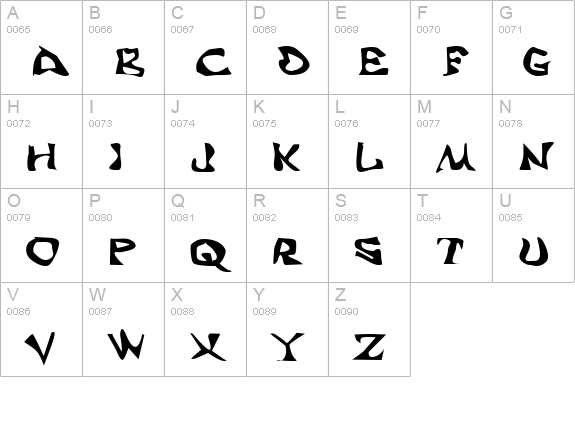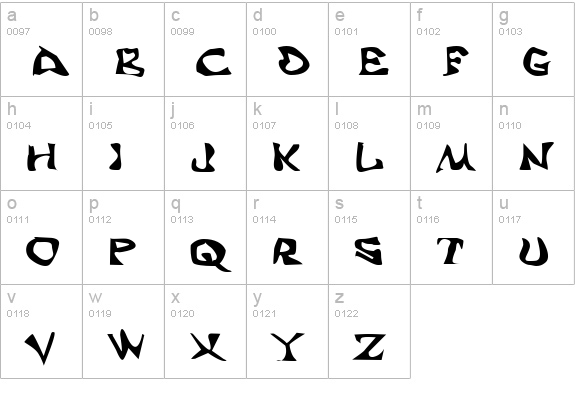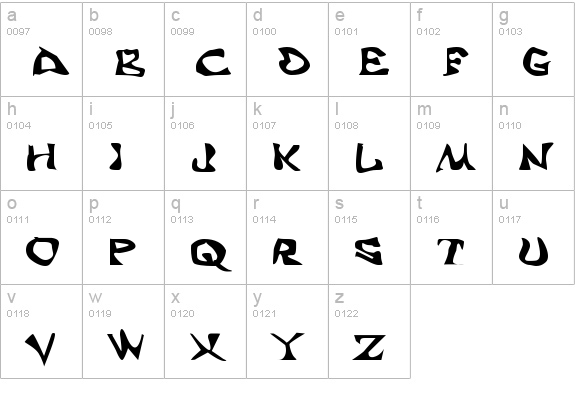
Aaah Font Details
Introducing Aaah Font, a versatile and eye-catching typeface that is sure to make your designs stand out. With its unique blend of modern and playful elements, this font is perfect for a wide range of projects, from branding and logos to social media posts and invitations. What sets Aaah Font apart is not only its stunning visual appeal but also its accessibility. This font is available for free, allowing you to enhance your designs without breaking the bank. Whether you're a professional designer or a creative enthusiast, Aaah Font offers a wealth of possibilities without any cost attached. Downloading Aaah Font is quick and easy. Simply head over to FontsMarket.com, where this font is readily available for download. With just a few clicks, you'll have access to this incredible typeface and be well on your way to creating captivating designs that leave a lasting impression. Don't miss out on the opportunity to elevate your designs with Aaah Font. Download it for free today at FontsMarket.com and discover the endless creative possibilities that await.